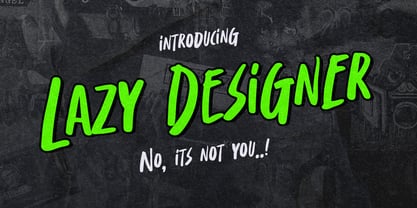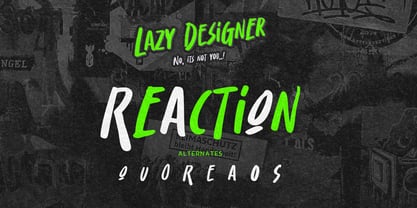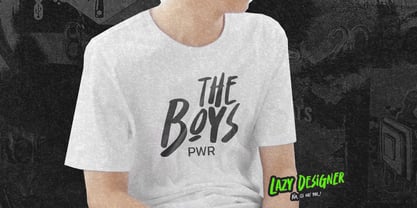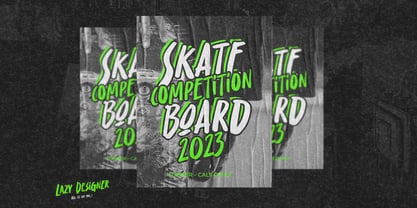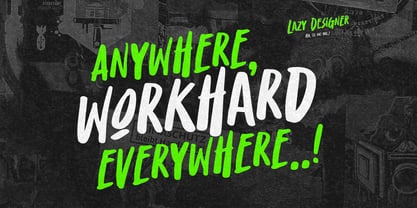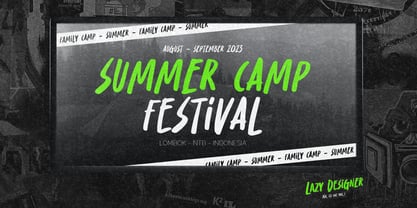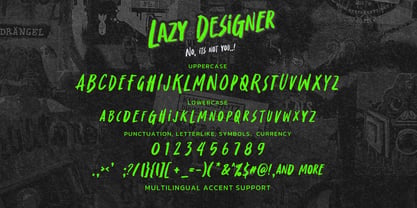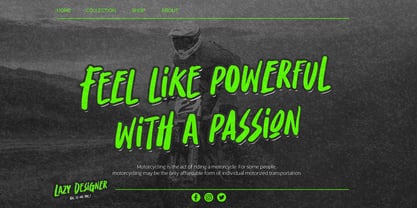
Lazy Designer
by Almarkha Type
The Lazy Designer Font Family was designed by Abdul Malik Wisnu and published by Almarkha Type. Lazy Designer contains 1 styles. More about this family
Lazy Designer is a display typeface that embodies a laid-back, loose, and playful personality. Its relaxed, expressive strokes and slightly messy handcrafted appearance create a fun, spontaneous vibe—like something designed while chilling out, yet still cool and eye-catching. With its flexible character and free-flowing style, Lazy Designer is ideal for designs that aim to feel fun, casual, humorous, and creatively quirky. Despite the name "Lazy," your designs will remain fresh, unique, and standout.